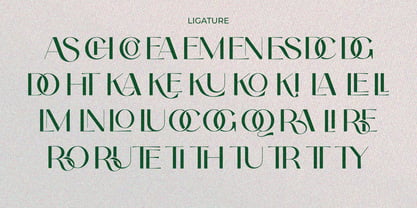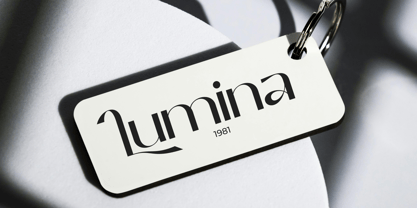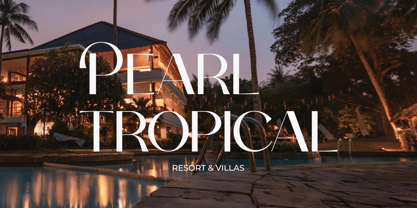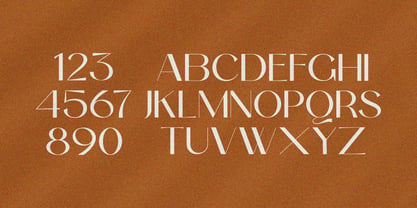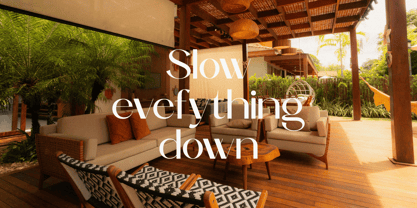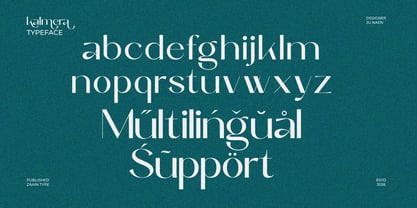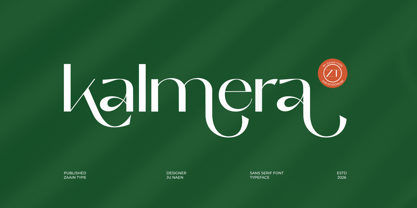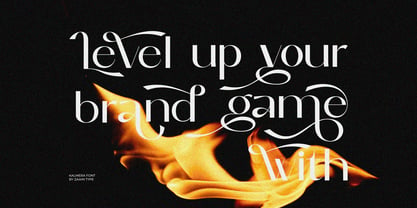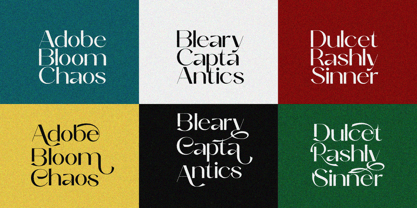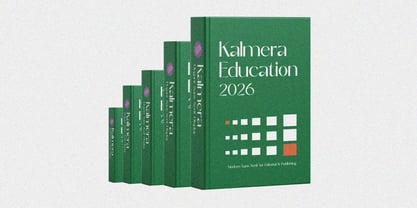
Kalmera
by Zaain Type
The Kalmera Font Family was designed by Ju Naen and published by Zaain Type. Kalmera contains 2 styles and family package options. More about this family
Kalmera is a modern sans serif typeface that blends simplicity with refined elegance. Designed with clean lines, balanced proportions, and excellent readability, Kalmera delivers a professional yet stylish presence. Its smooth curves and structured forms make it highly versatile, perfect for branding, editorial layouts, and digital interfaces. With a minimalist aesthetic and a distinctive contemporary feel, Kalmera adds clarity and sophistication to any design. Whether used for headlines or body text, it maintains a polished and modern look across various sizes. Kalmera is an ideal choice for creatives seeking a sleek, timeless typeface that elevates visual communication
Designers: Ju Naen
Foundry: Zaain Type